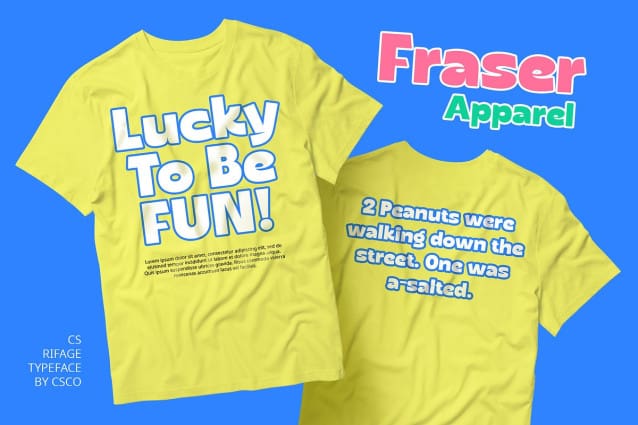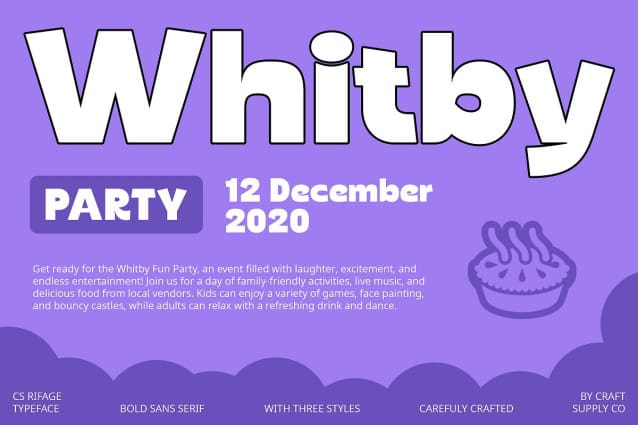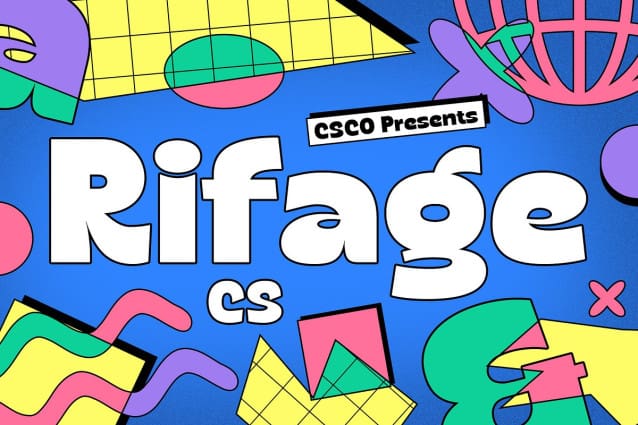
CS Rifage Font
CS Rifage Font is a bold sans-serif font that commands attention with its striking thick lines and unique, funky vibe. Designed to create an attractive and dynamic appearance, this font is perfect for projects such as poster designs, album covers, and branding materials that demand bold and creative typography.
The bold shape of CS Rifage ensures high visibility and impact, making it ideal for capturing audience attention in various design applications. Each letter is crafted to emphasize boldness while maintaining readability, ensuring your typographic compositions stand out with a powerful and vibrant presence.
Perfect for poster designs where typography plays a central role, CS Rifage also excels in album covers and branding materials seeking to convey a bold and expressive message. Its funky vibe adds a unique twist to your designs, making them memorable and engaging for your audience.
Choose CS Rifage to elevate your designs with a bold sans-serif font that combines dynamic boldness with a funky aesthetic. Whether used for digital interfaces or printed materials, this font promises to enhance your typographic compositions with an attractive and energetic appearance that leaves a lasting impression.